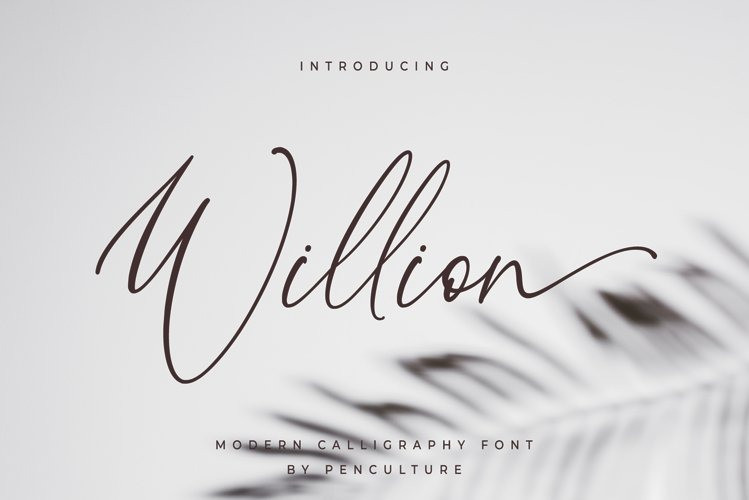
Willion Font
Willion Calligraphy Font
This is beautiful and lovely script font created by Pen Culture with many alternative styles, ligatures, and multilingual glyphs. Willion is perfect for branding projects, homeware designs, product packaging – or simply as a stylish text overlay to any background image.